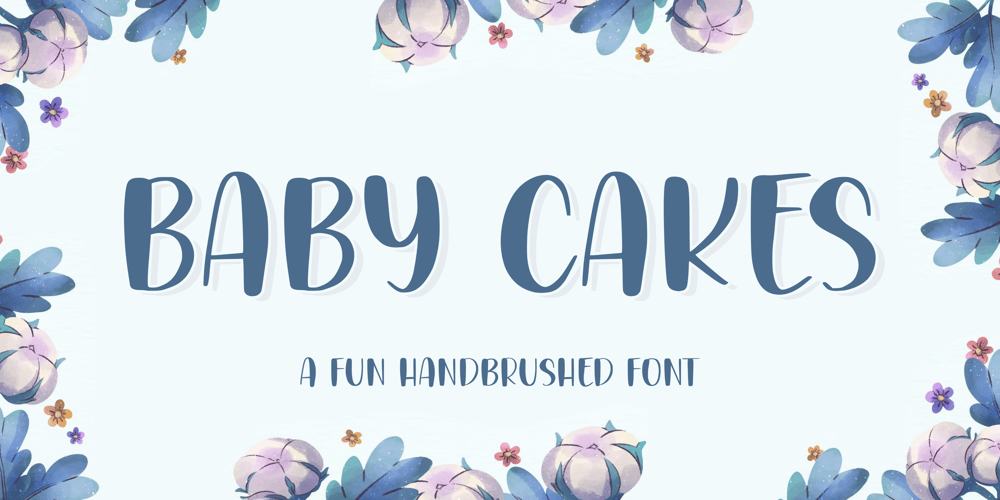
Babycakes Font Family was designed by Restu Angga and published by Balpirick. Babycakes contains 1 styles and family package options. BABYCAKES is a Fun Handbrushed Font.Babycakes is a cute and fun display font. It embodies playfulness and authenticity and is the perfect choice for any children activity or school project. Add this chunky lettered font to your designs and notice how it makes them come alive!.BABYCAKES also multilingual support.Enjoy the font, feel free to comment or feedback, send me PM or email.Thank you!